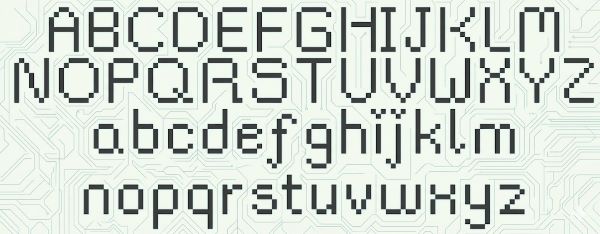
Rainy Hearts Font
Rainy Hearts is a free small letter font by Camellina, a charming 16px pixel typeface whose rounded, playful letterforms carry a sweet, lo-fi handmade quality — each character feeling like it was carefully placed on a pixel grid with personality and warmth rather than mechanical precision. The result is a typeface that feels both nostalgic and genuinely endearing.
Its cute, approachable aesthetic makes it ideal for indie games, kawaii-inspired designs, Valentine’s Day projects, stickers, social media graphics, and any creative work that benefits from a touch of pixel-art sweetness. Browse our full library of free fonts and discover more distinctive typefaces crafted by independent designers around the world.